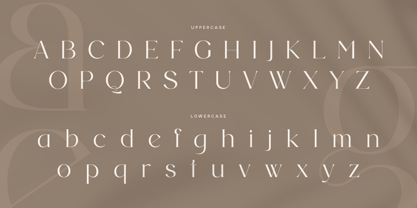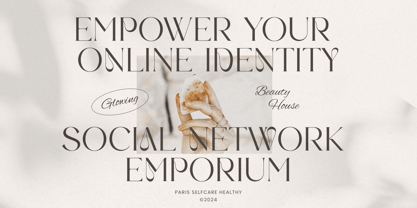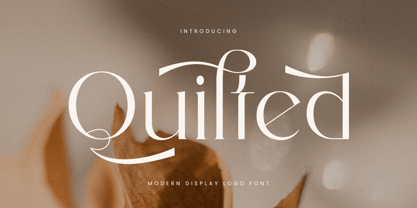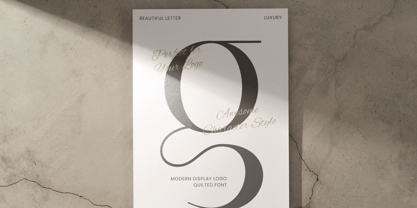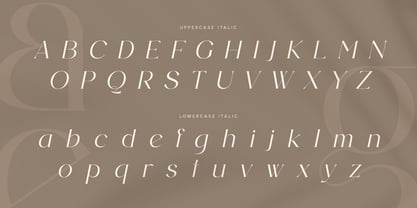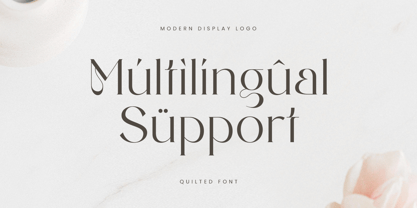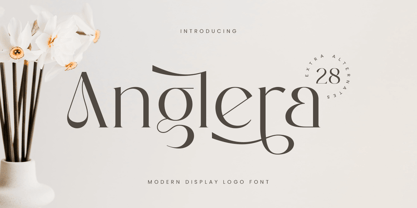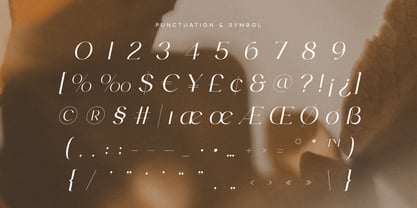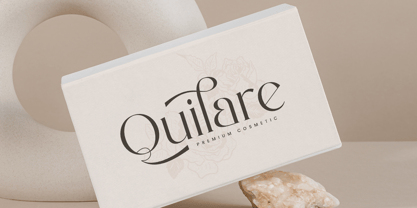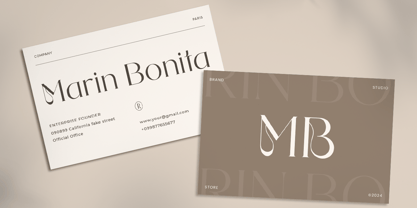
Anglera
The Anglera Font Family was designed by Zamroni Hamzah and published by Sensatype Studio. Anglera contains 2 styles and family package options. More about this family
Anglera - Modern Display Logo Font
Anglera is a modern display font designed to make an impact. With its bold and stylish aesthetic, Anglera is perfect for logo design, branding, and display purposes. Its sleek lines and distinct character shapes bring a contemporary edge to any project, making it ideal for designers who want to create a lasting impression.
Inspired by modern design trends, Anglera was crafted with versatility in mind. Whether you're designing for digital or print, this font seamlessly adapts to various contexts. Its unique alternative characters add an extra layer of creativity, allowing you to customize your designs and make them truly unique.
From professional logos to eye-catching headlines, Anglera is a go-to choice for designers seeking a modern, impactful font. Its balance of elegance and strength ensures your work stands out while remaining polished and professional.
Anglera Modern Display Logo Font Features:
• Unique Alternative Characters Ready
• Punctuation, Number, and Symbol
• Uppercase and Lowercase
• Multilingual Support
• Opentype Features